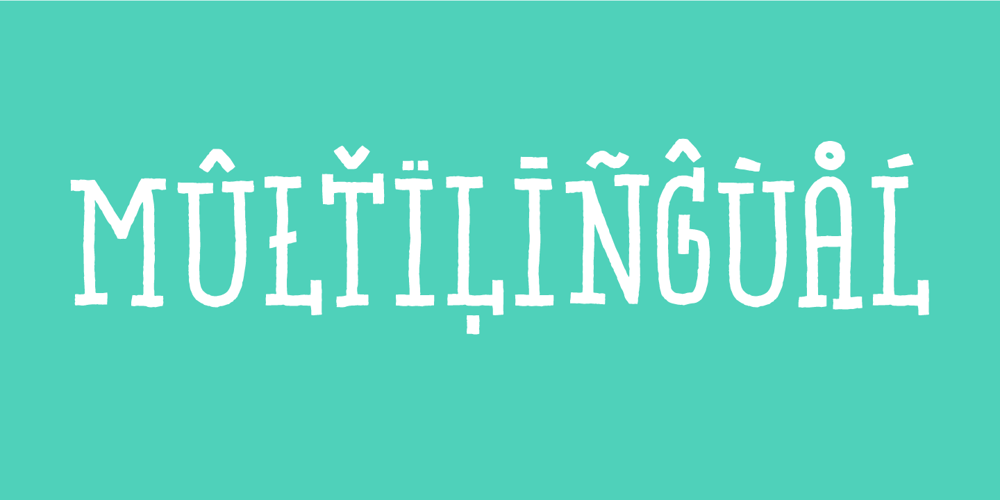
Vokalia
Vokalia font
Vokalia Font Family was designed by Jakob Fischer and published by PizzaDude.dk. Vokalia contains 2 styles and family package options. Vokalia, a new Danish font – straight from the heart of Copenhagen! Vokalia is handmade, using a fat squared brush. Then cleaned up a bit digitally, but leaving the brush impressions. Multilingual support and loads of personality included!